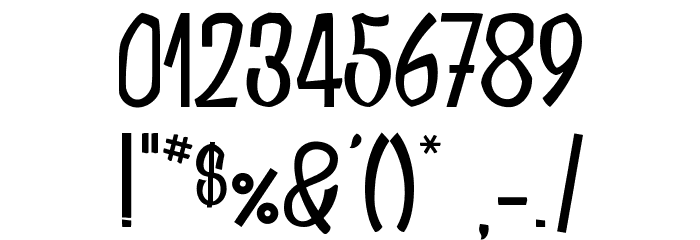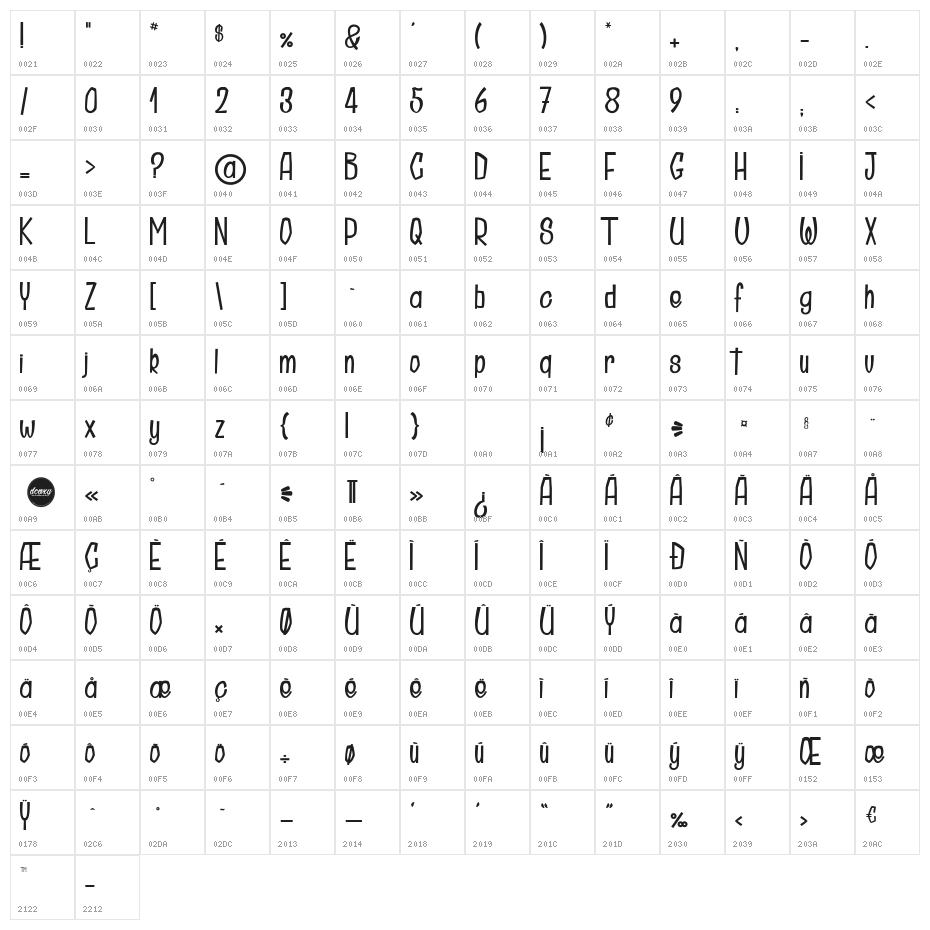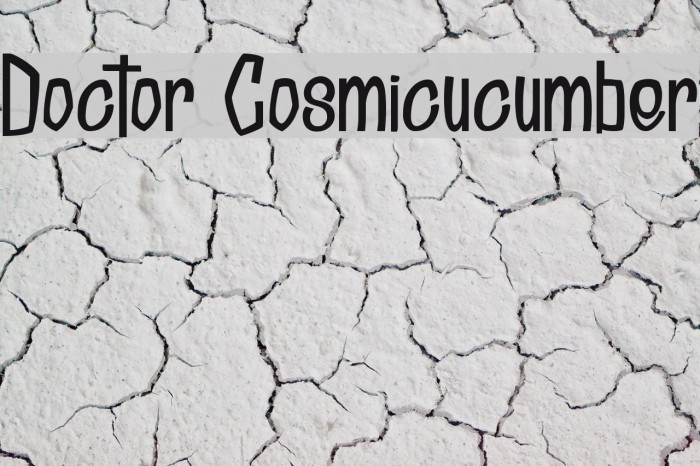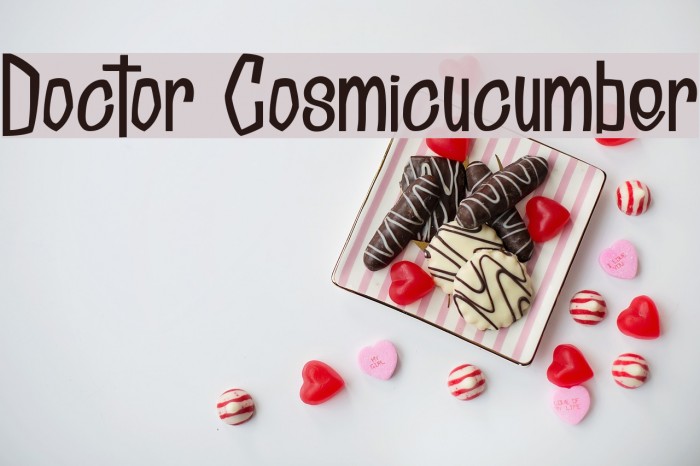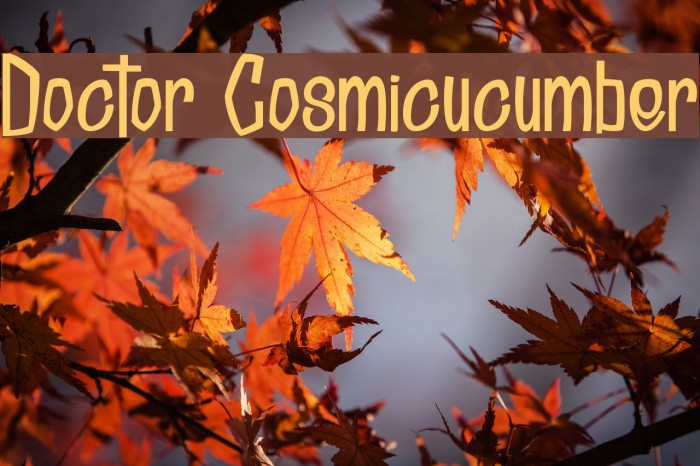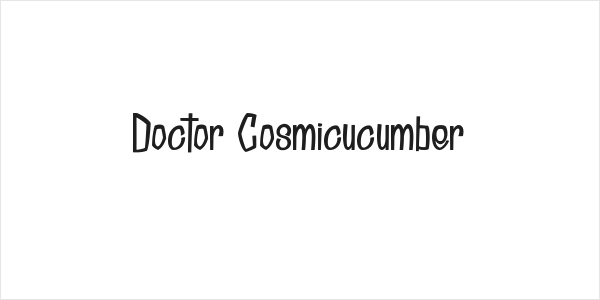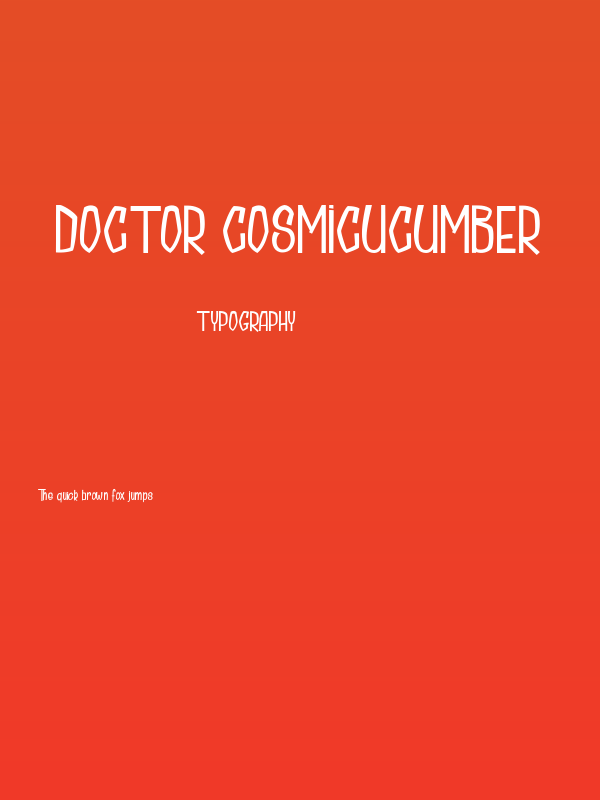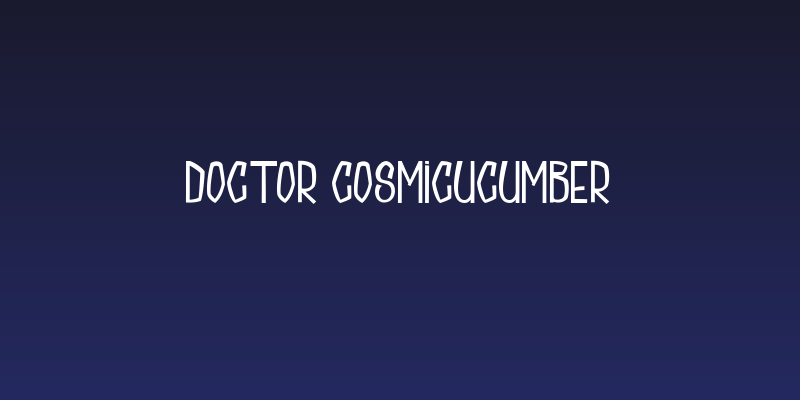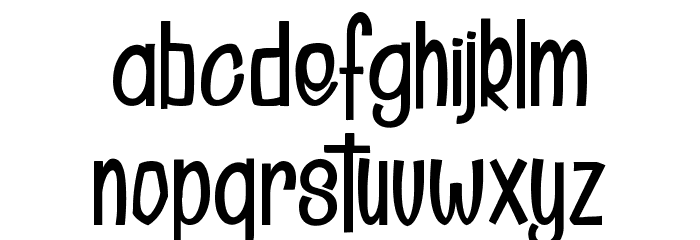
Doctor Cosmicucumber Font
Doctor Cosmicucumber Description
This font features a playful and quirky design, characterized by its tall, narrow letterforms and slightly irregular shapes. The uppercase letters exhibit a unique, almost hand-drawn quality with varying stroke widths, giving them a dynamic and lively appearance. The lowercase letters maintain this whimsical style, with some characters having exaggerated curves and angles. The numerals are consistent with the overall aesthetic, offering a cohesive look across all characters. Special characters are creatively integrated, maintaining the font's distinctive personality. This font's charm lies in its ability to convey a sense of fun and creativity, making it suitable for projects that require a touch of individuality and flair.
| Overall Style | Playful, Quirky |
| Proposed Projects | Ideal for children's books, creative posters, playful branding, and unique invitations. |